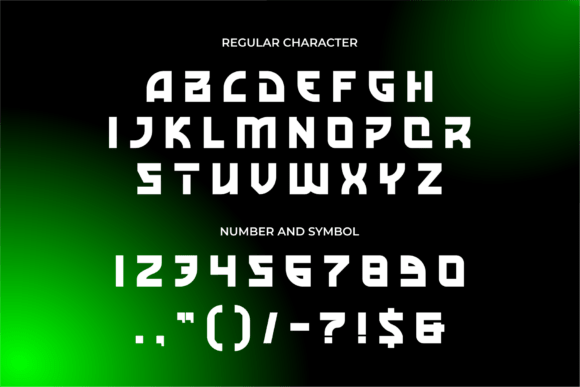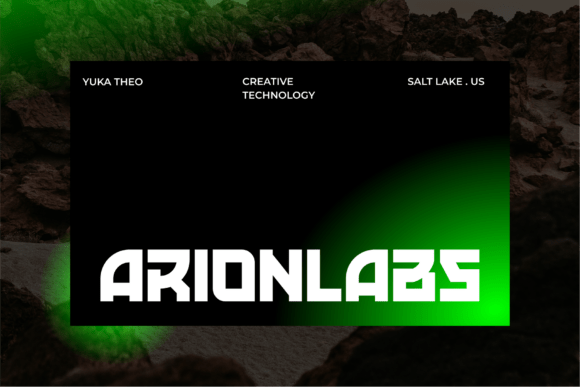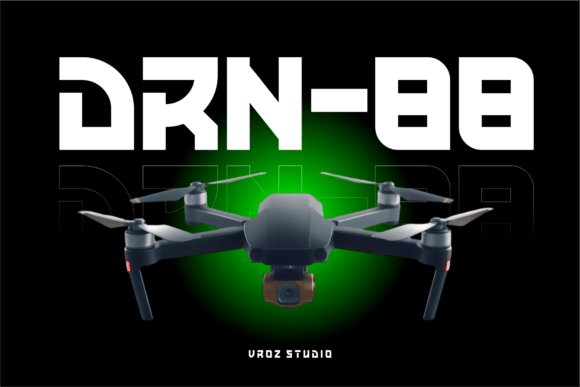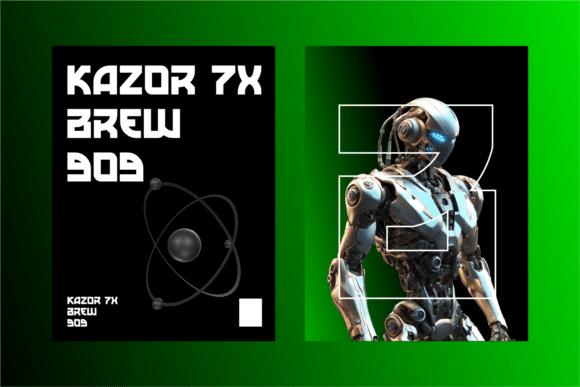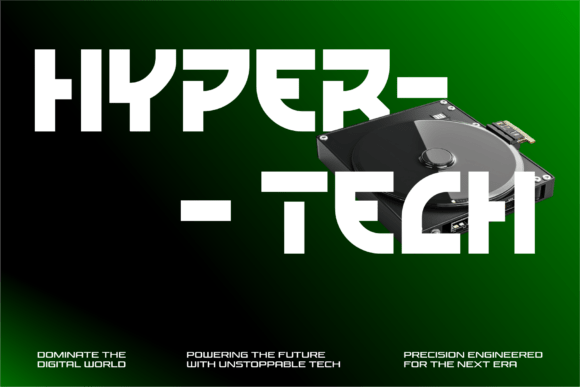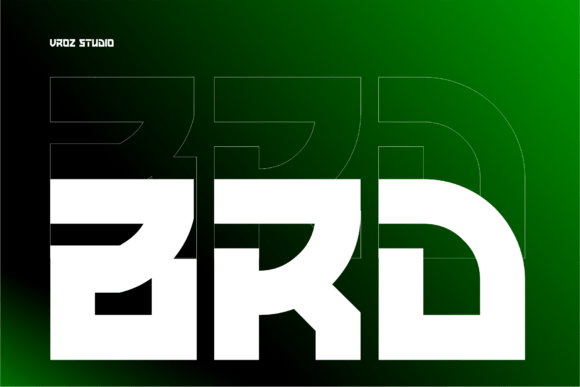
Introducing Barion Font: The Cutting-Edge Modern Display Font for Futuristic Designs
In the realm of digital design, a font can make all the difference in capturing the essence of a brand or project. For those seeking a bold, futuristic aesthetic, Barion Font emerges as a game-changer. Crafted with a vision to push the boundaries of modern display typography, Barion is perfect for tech branding, esports visuals, sci-fi movie titles, UI/UX concepts, posters, digital campaigns, and motion graphics.
The Birth of a Futuristic Font
Barion is not just another font; it’s a statement. Designed to bring a high-impact aesthetic to the forefront, it commands attention without compromising on readability. The creators of Barion aimed to bridge the gap between futuristic appeal and practical usability, making it an indispensable tool for designers and crafters looking to infuse their work with a sleek, professional edge.
Versatility at Its Core
One of the standout features of Barion Font is its versatility. Whether you’re building a futuristic brand from scratch, designing the next-generation interface for a digital product, or creating bold promotional visuals, Barion adapts seamlessly to your needs. Its bold and clean lines make it an excellent choice for a wide range of applications, ensuring that your work not only looks innovative but also communicates effectively.
Perfect for Innovative Projects
- Tech Branding: Establish a strong digital presence with a font that screams innovation and forward-thinking.
- Esports Visuals: Elevate your esports branding with a bold and dynamic aesthetic that resonates with the gaming community.
- Sci-Fi Movie Titles: Bring your sci-fi projects to life with titles that capture the essence of the future.
- UI/UX Concepts: Design interfaces that are not only user-friendly but also visually striking and contemporary.
- Posters and Digital Campaigns: Make a lasting impression with promotional materials that stand out.
- Motion Graphics: Add a professional and innovative flair to your animations and graphics.
Why Choose Barion?
Choosing Barion Font for your projects comes with several advantages:
- High-Impact Aesthetic: Barion’s bold design ensures your work gets noticed.
- Readability: Despite its boldness, Barion maintains a high level of readability, making it perfect for a wide range of applications.
- Professional Edge: Give your designs a sleek and innovative look that sets you apart.
- Versatility: Use Barion across various projects, from digital interfaces to print materials, without losing its impact.
Barion Font is more than just a typeface; it’s a design statement that propels your work into the future. With its cutting-edge modernity, bold aesthetic, and unwavering readability, Barion is poised to become the go-to font for designers and crafters aiming to leave a mark in the digital and print landscape. Whether you’re diving into tech branding, crafting the next big esports event, or conceptualizing futuristic UI/UX, Barion is your ally in creating visually stunning and impactful designs.
Embrace the future of design with Barion Font. Let your creativity soar to new heights with a font that understands the pulse of modern design and the demands of a rapidly evolving digital world.